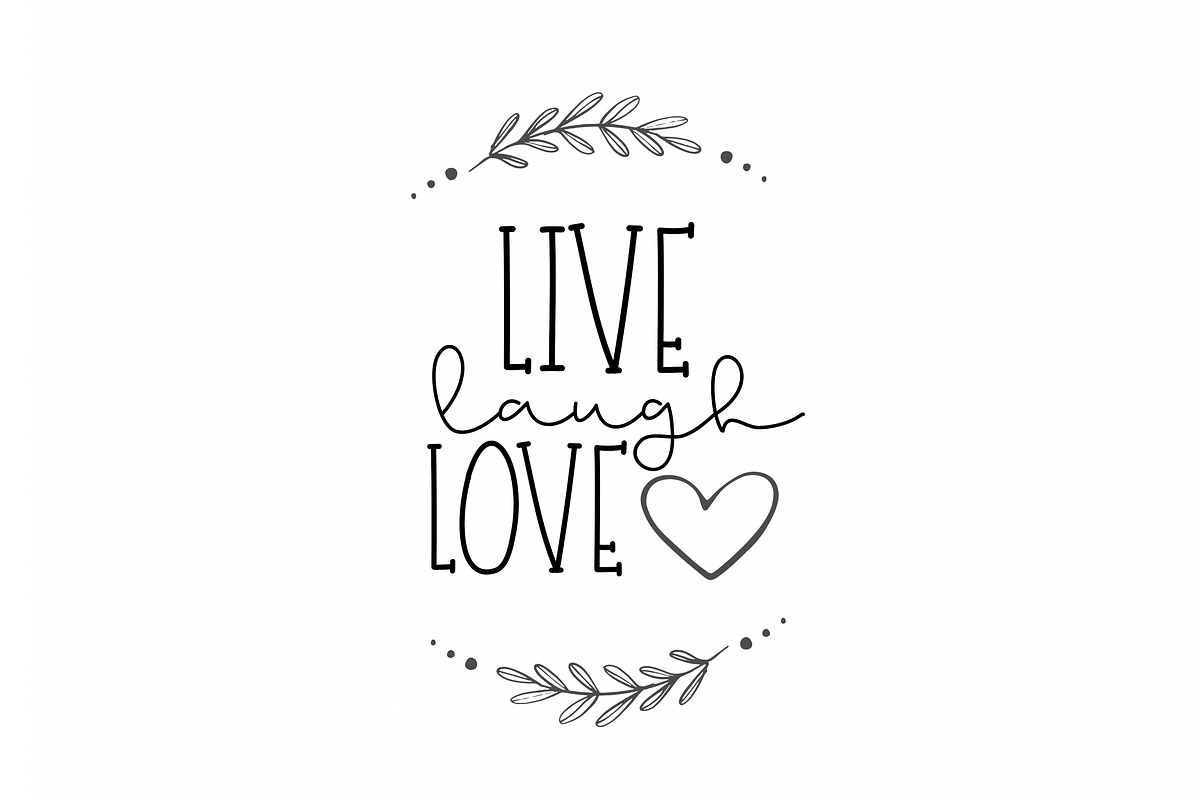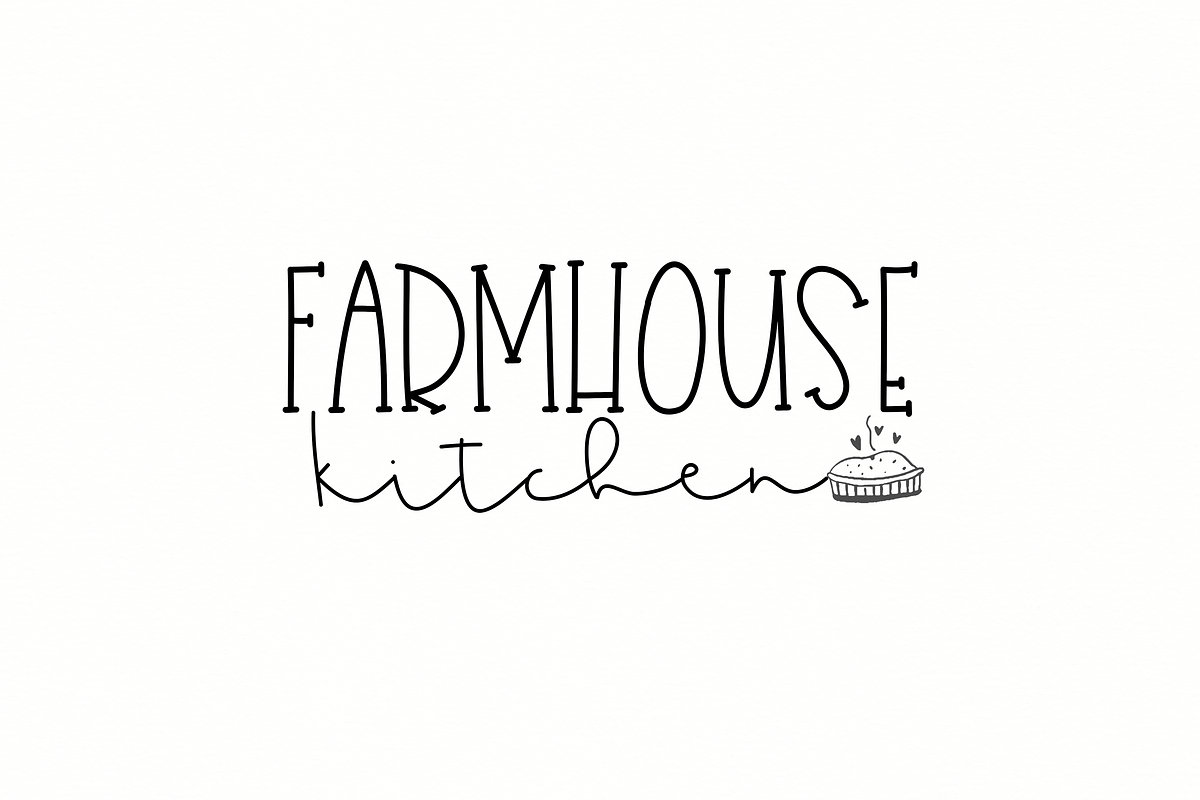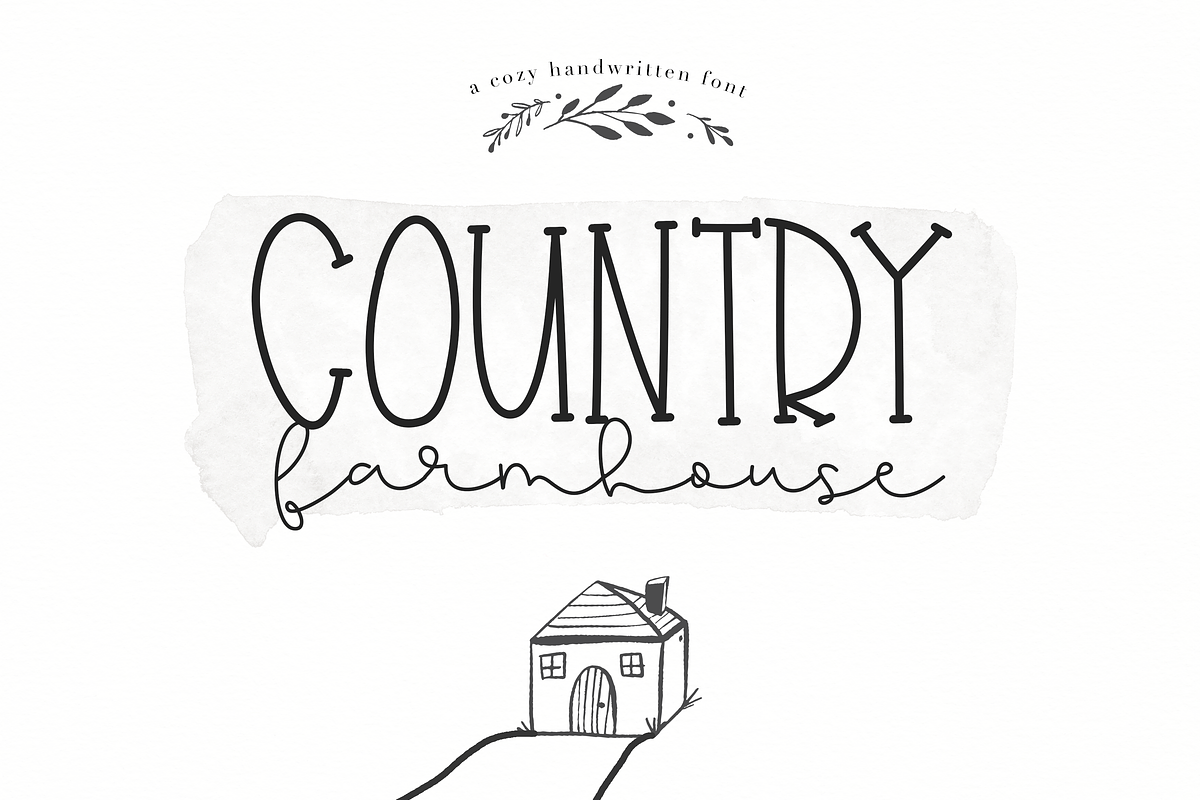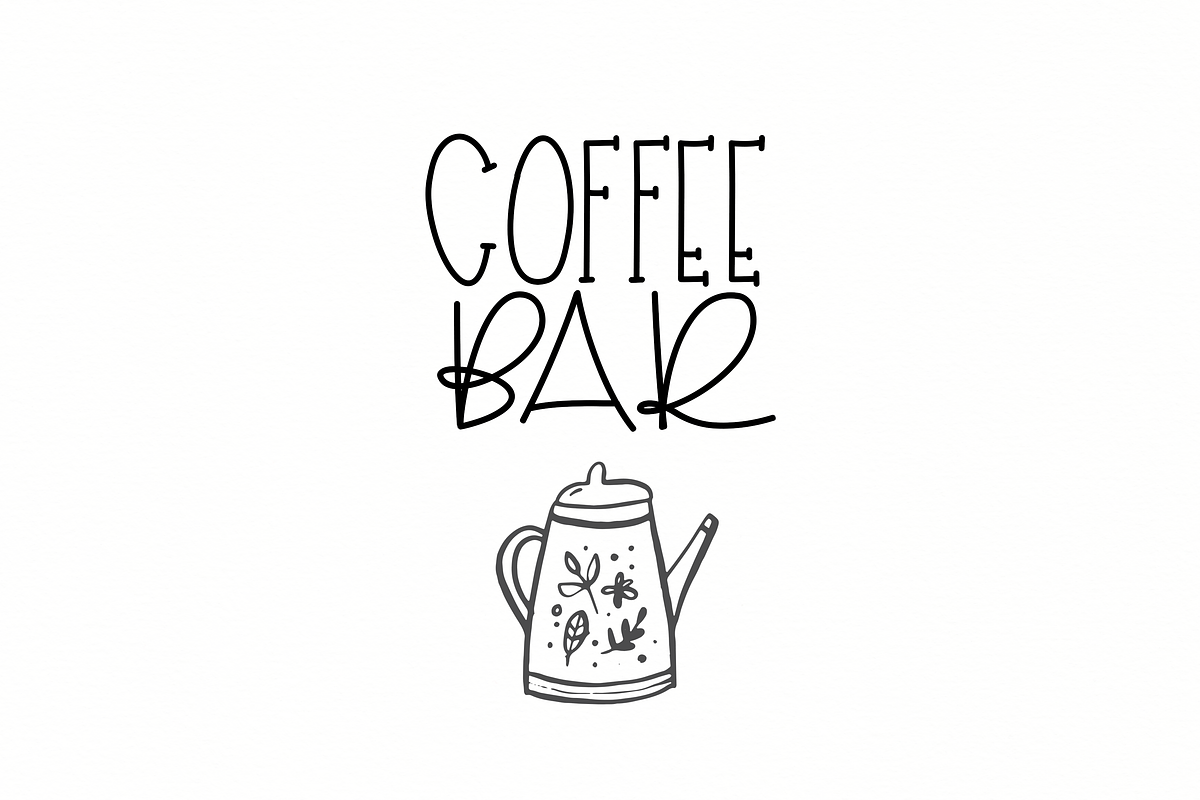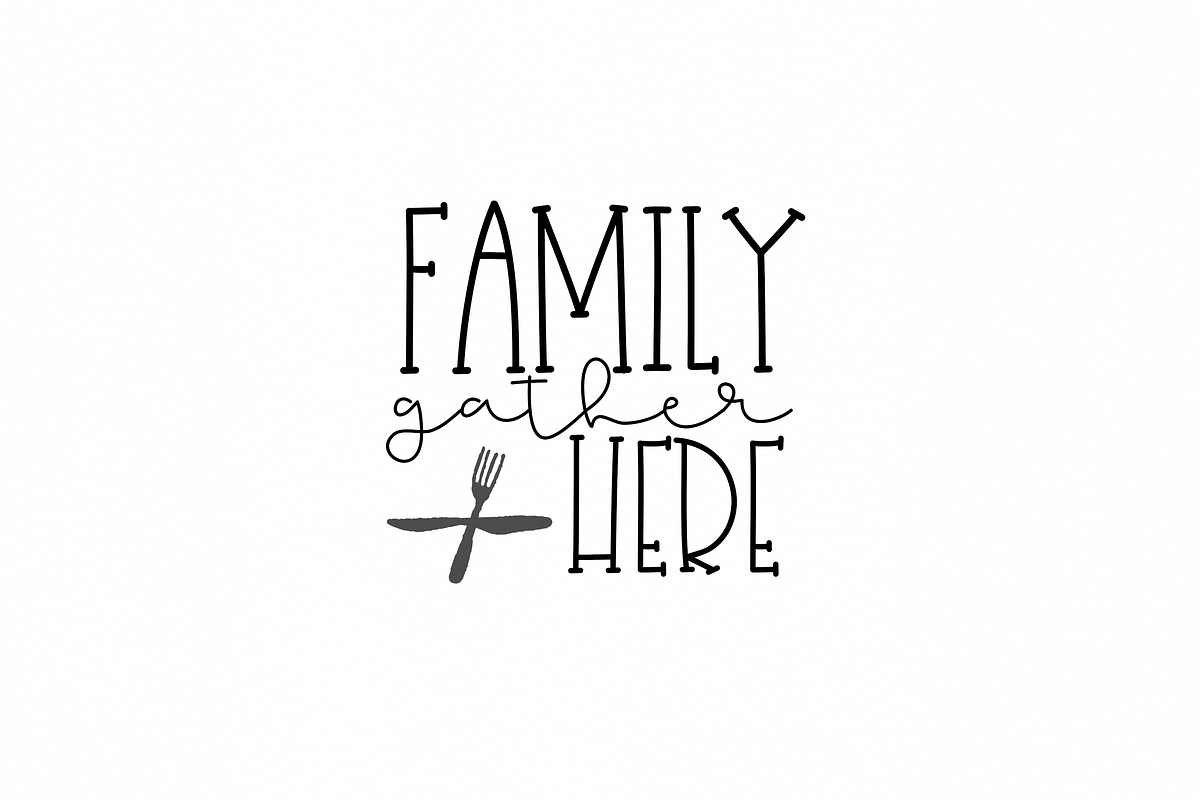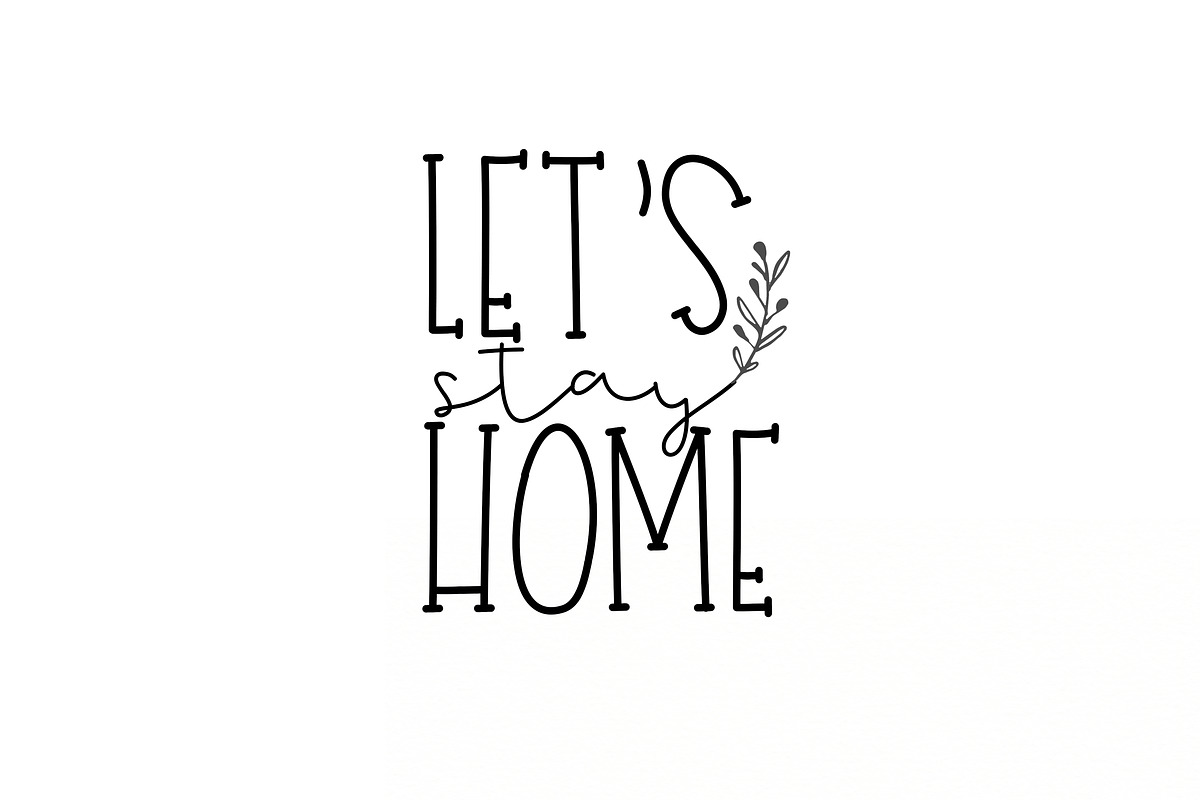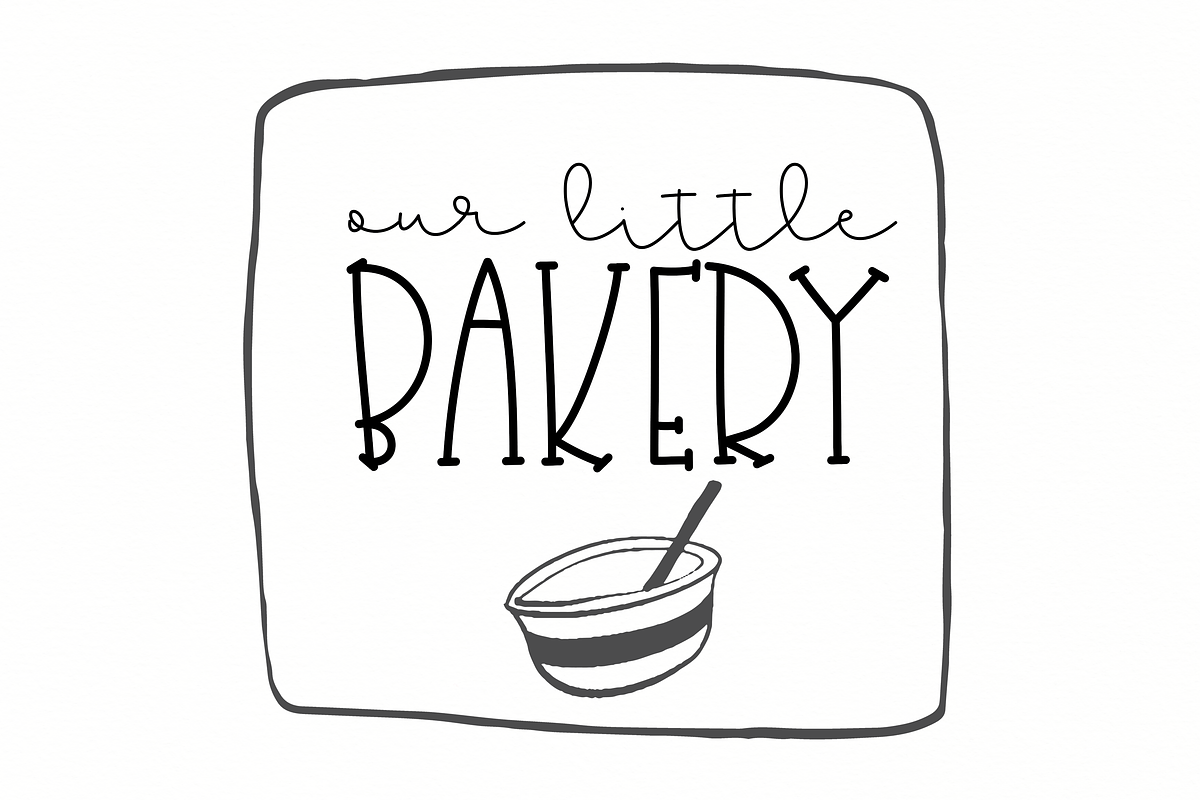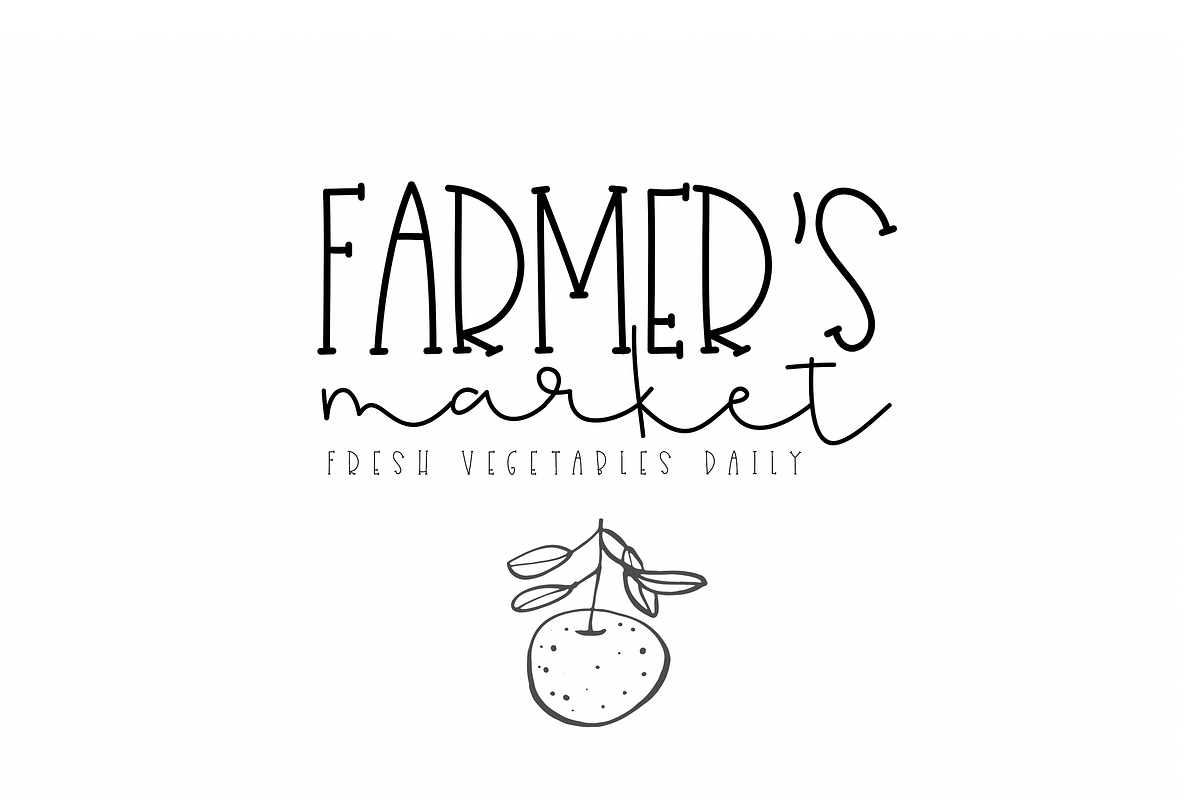
Country Farmhouse - Script Duo Font
Country Farmhouse is a cute handwritten font duo. You will receive two different fonts that coordinate perfectly together!
Country Farmhouse script is an elegant script font.
Country Farmhouse serif is a tall and quirky serif font.
This font duo is perfect for quotes, headings, blogs, logos, invitations and more! It has a modern farmhouse appeal that will look wonderful on quotes for your house or business.